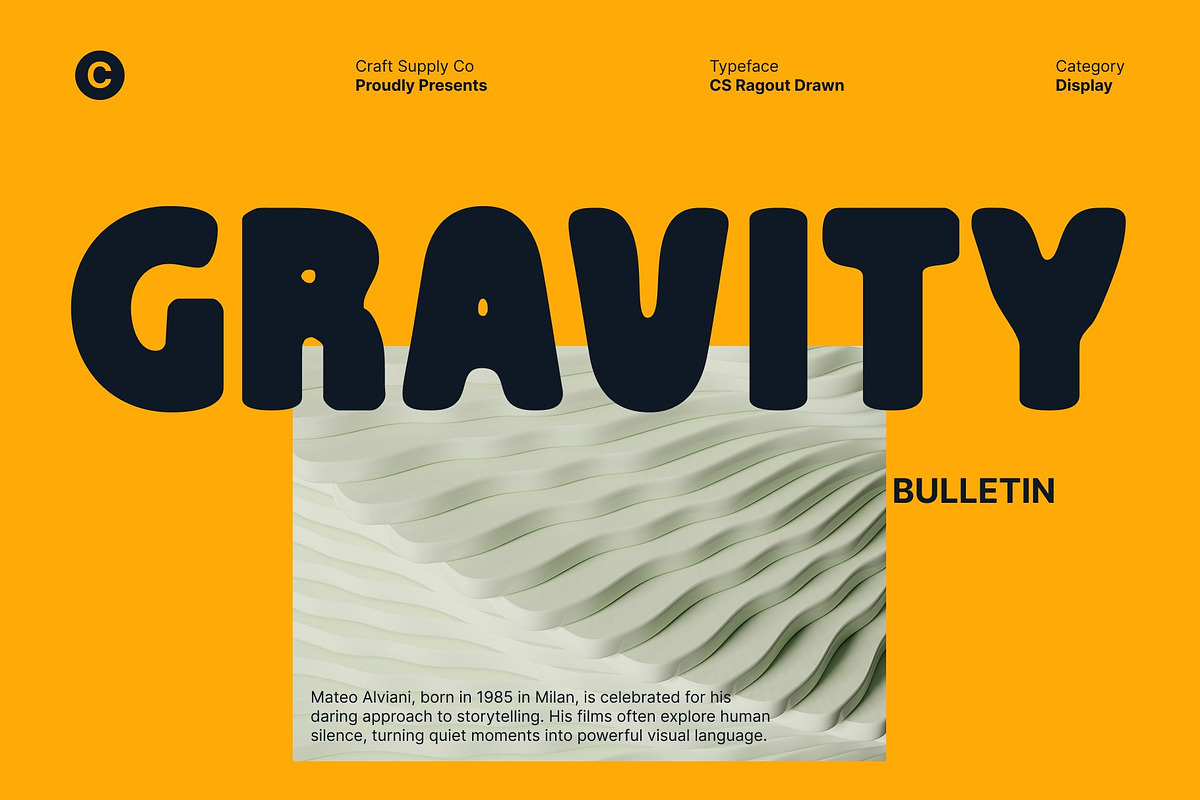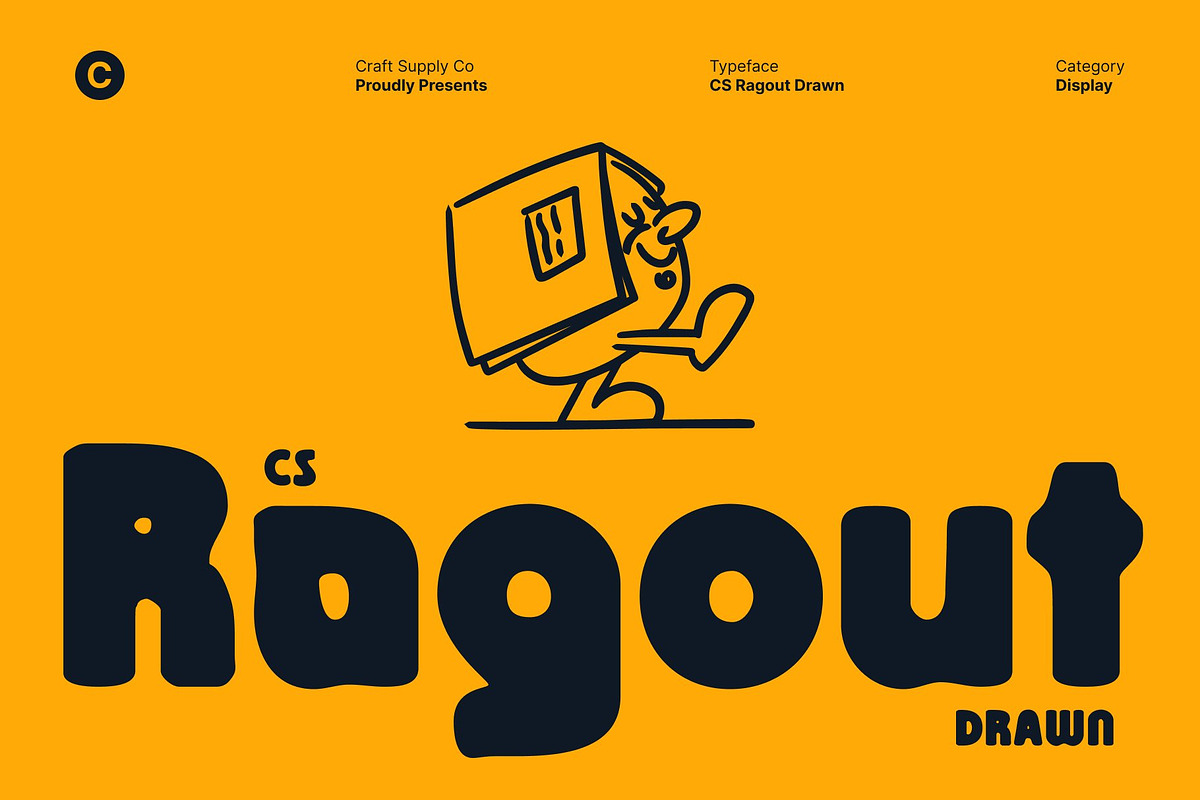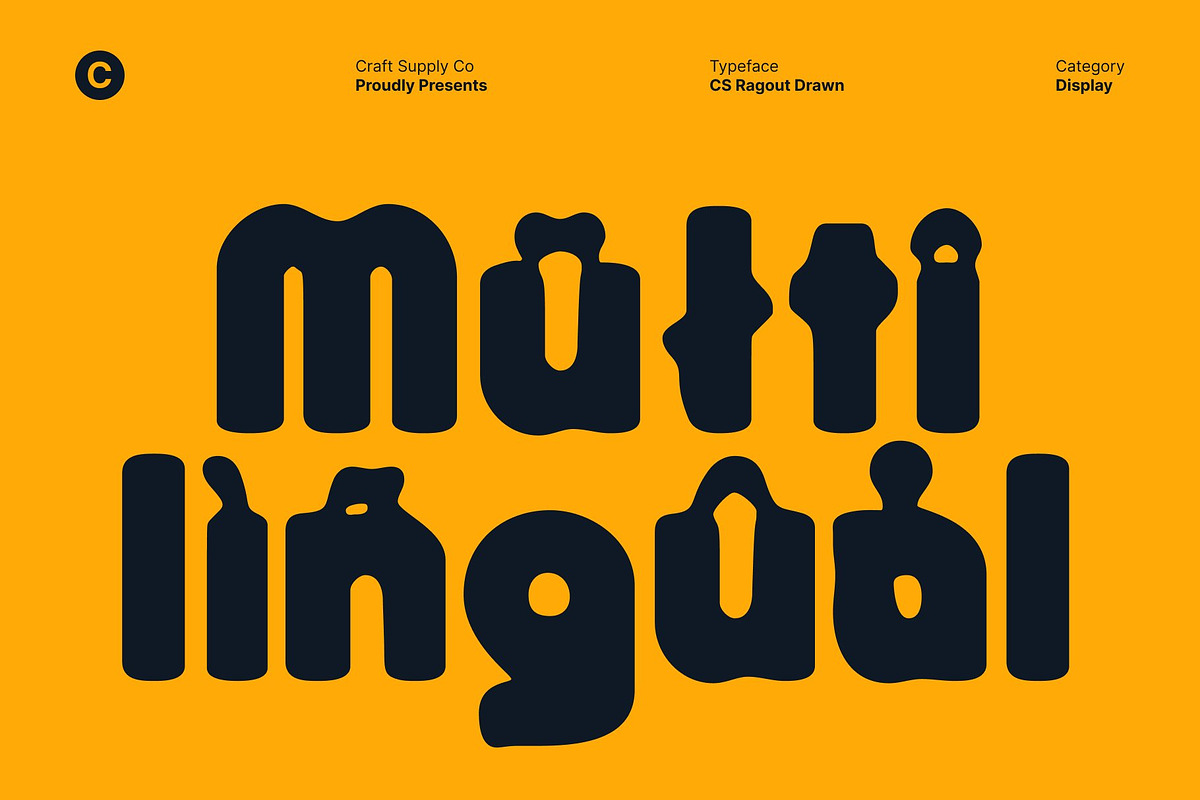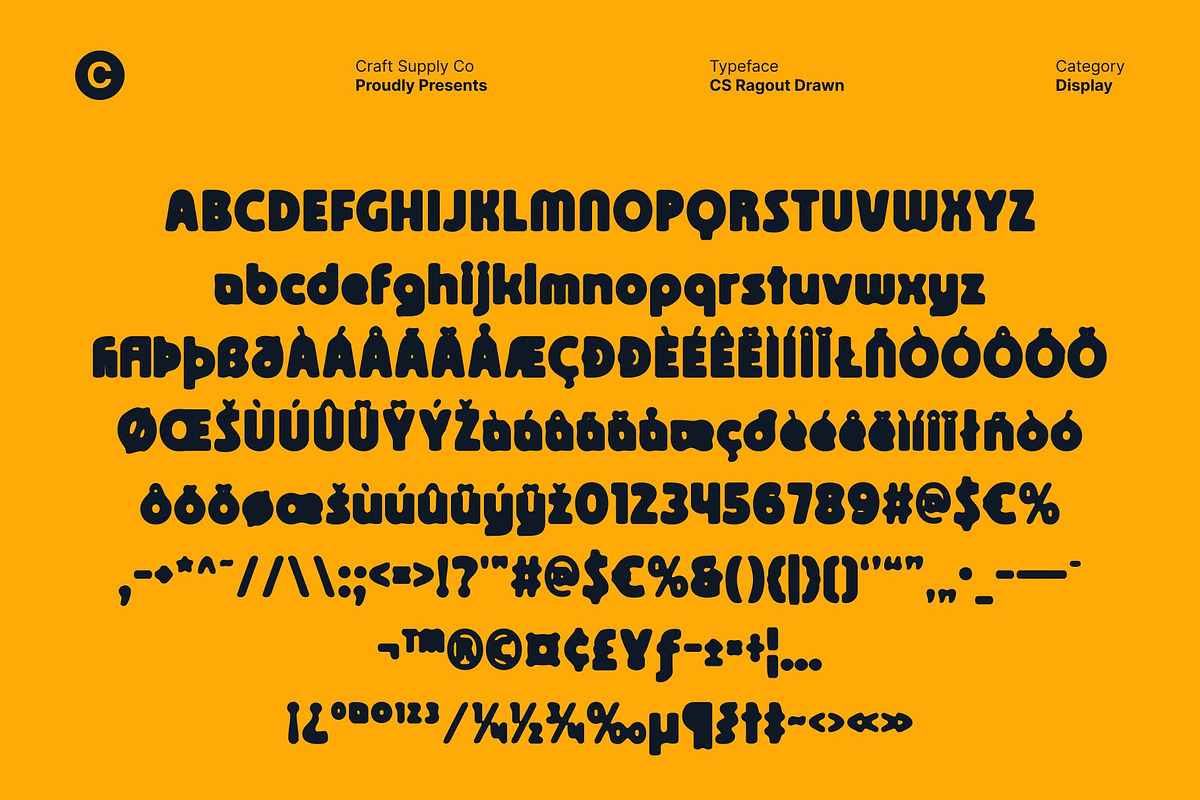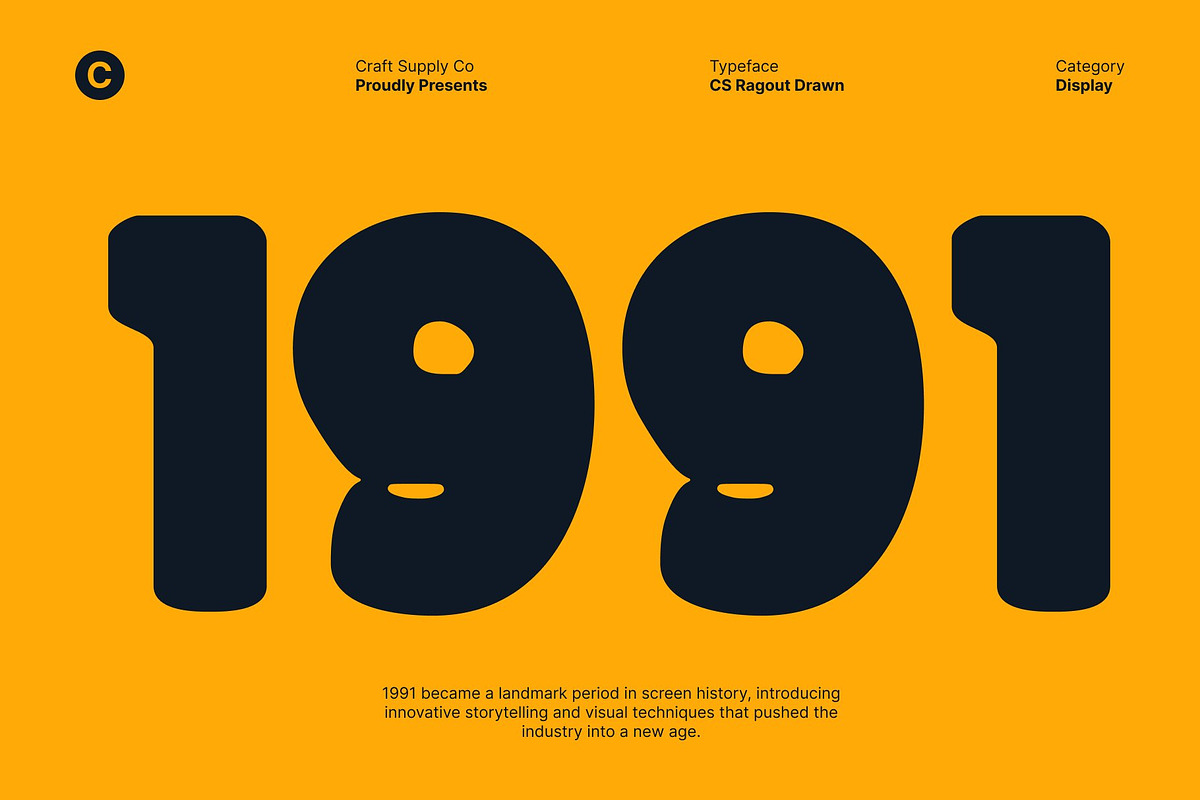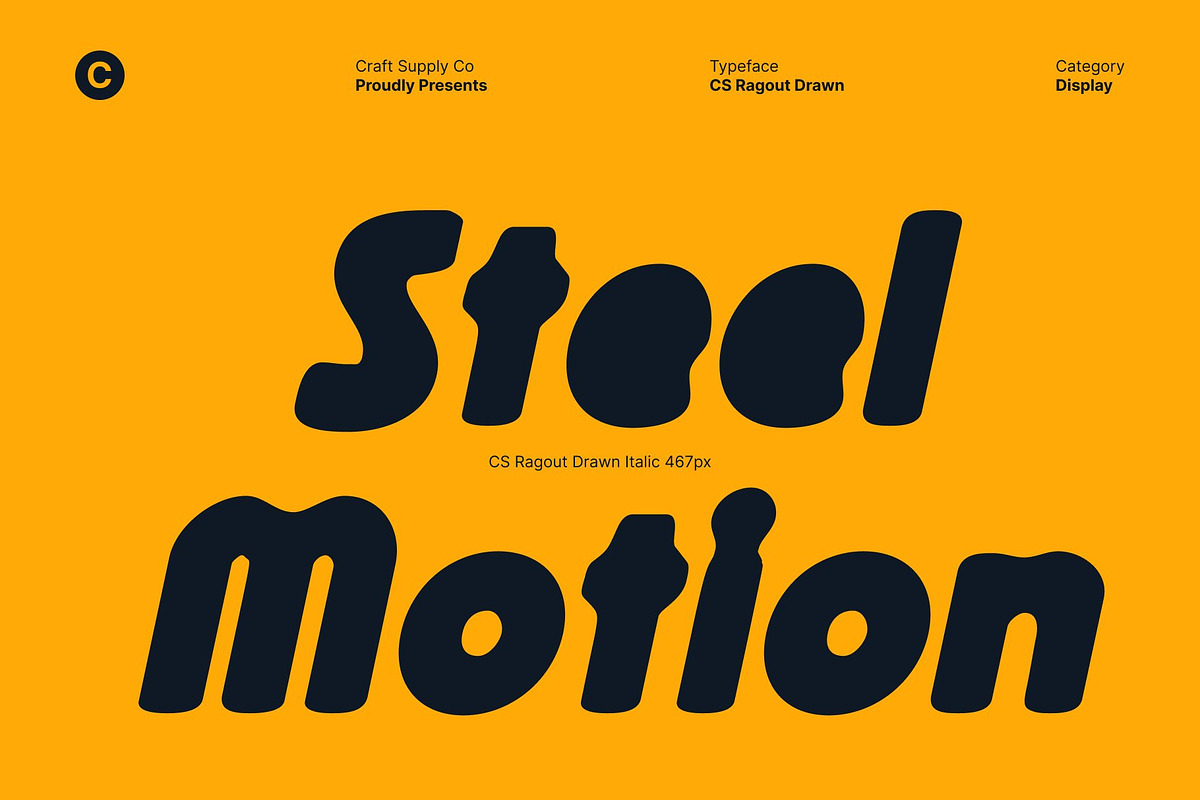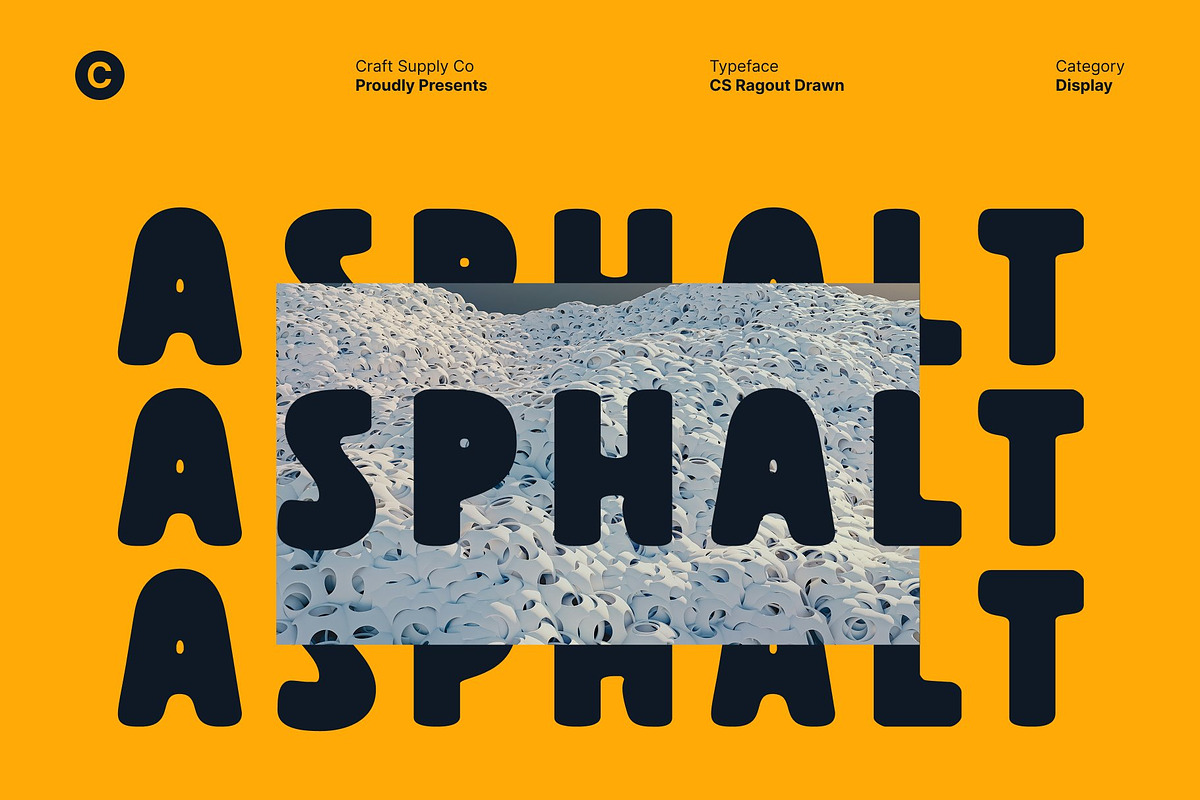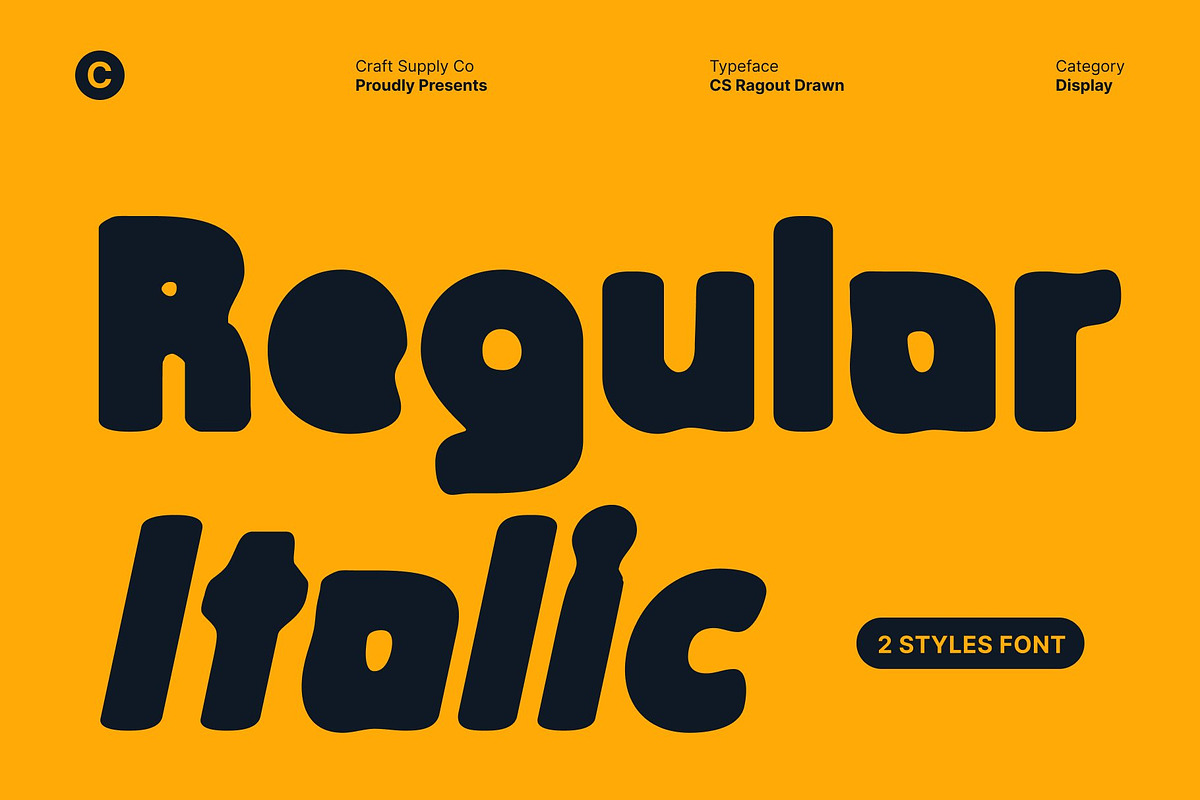
CS Ragout Drawn
CS Ragout Drawn – Bold Playful Display Font with Artistic Drawn Texture
Brutal Shapes with Friendly Personality This bold display font brings a playful yet slightly brutal charm to every letterform. Its thick, confident strokes create a strong visual presence, while the rounded touches and fun proportions keep it approachable, friendly, and full of character.
Drawn Effect for Artistic Warmth The drawn-on effect adds a handcrafted, relaxed quality that softens its boldness and makes the font feel expressive and artistic. Each letter carries subtle irregularities that enhance the font’s personality, giving it a warm and creative vibe.
Perfect for Eye-Catching Creative Designs Ideal for bold posters, quirky branding, packaging, children’s content, or any project that needs an energetic and memorable display style, this font effortlessly balances strength with playfulness.
Vibrant, Fun, and Creatively Expressive By merging playful boldness with a relaxed drawn texture, this font becomes a versatile choice for designers who want a display typeface that feels strong, joyful, and artistically unique.